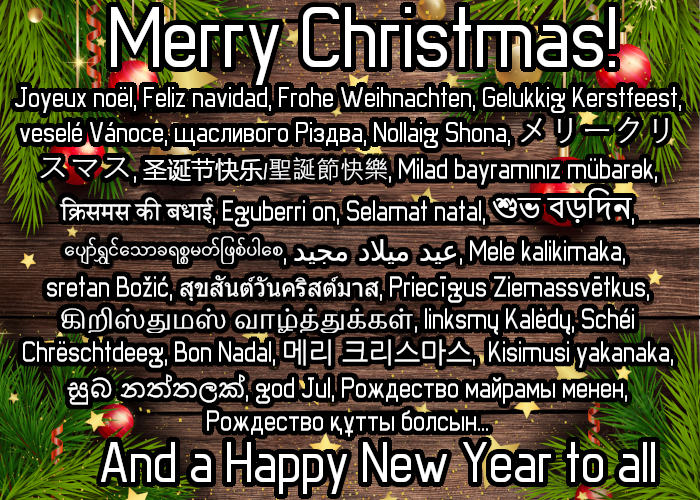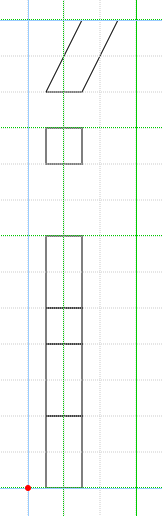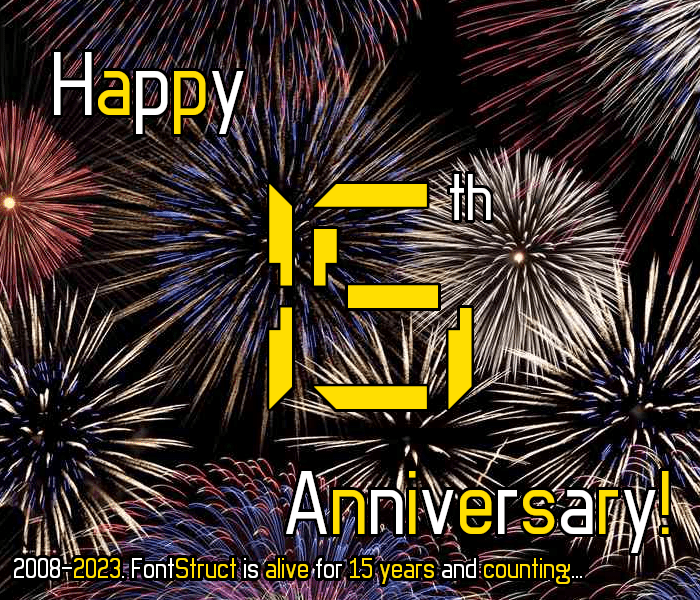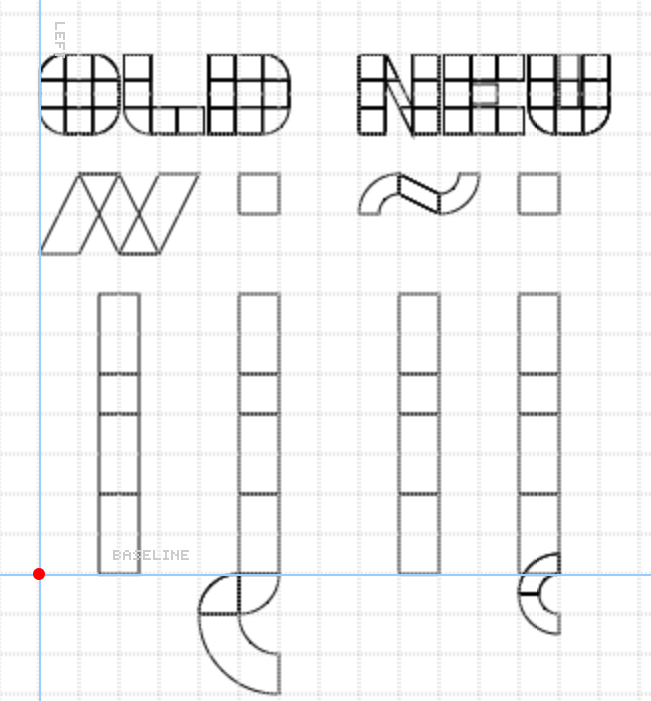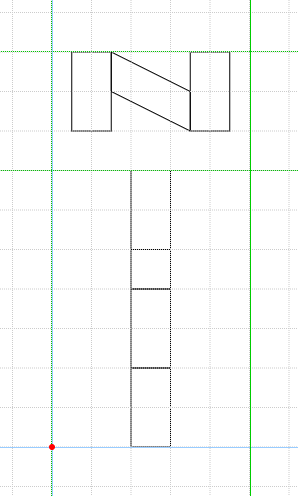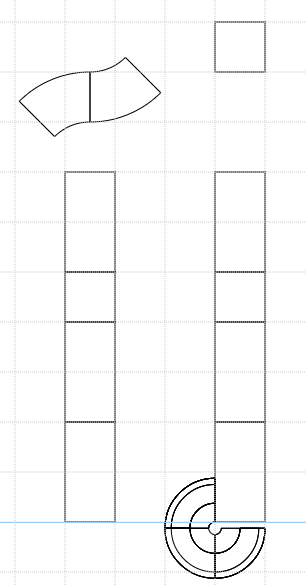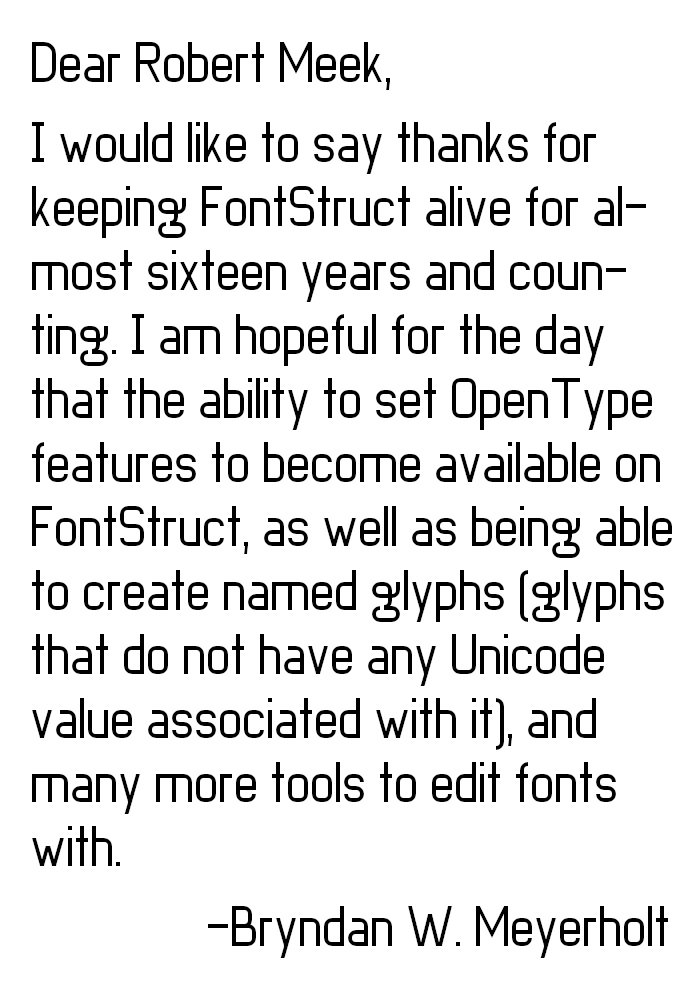
Clear and neat font!
Nice and extensive "macaroni" typeface!
The classic, but timeless, BWM look. Sweet.
A clean and very well put together sans serif and so many characters!
why is your g in almost every font weird?
@lucapri: It's his signature 'g'. He even writes it like that
Simple but elegant without seeming too formal. Plus I appreciate the variety of glyphs to choose from
I think figuring out the slopes of the legacy mosaic symbols was more difficult…
Also, the Mayan numerals were really easy to do as it has three distinct parts to it, the shell (0), the dot (1), and the line (5).
Now if only I could add named glyphs (like the .notdef) without needing FontForge, then I might make i-acute look like this for Lithuanian without the need for the Private Use Area to hold said glyphs (I use the Private Use Area for the 7-segment display and arbitrary fractions).
The Vietnamese glyphs in this font is absolutely PERFECT!!!!
@"Kiên Trung" Thanks. I had to squash down the base letters so the diacritics can fit within the vertical spacing without clipping being an issue (It occurs a lot with Windows, since many programs still use WinAscent and WinDescent (unless the flag to use Typo metrics is enabled)), especially on letters that have two marks above a letter. And of course, Ỳ is also a part of Welsh as well.
Fun fact: For some Vietnamese letter such as Ấ, Ầ, Ẩ (circumflex with grave/acute/hook above), you can put the grave/acute/hook above to the right side of the circumflex (for the grave, you can put it on both side of the circumflex)
One more thing I forgot: I'm in love with your signature "g", maybe I should have my own signature letter too.
so basically the tlide and ogonek needs more improving, so i will fix this
so here, [suggestion]
(the improved tlide and ogonek design that i made)
@SUMMER701 I looked at your suggestion, but sadly, it would make both marks too thin or too small for my liking, but thanks anyways…
But I did create this shape for the tilde, and I think that this one looks better than the old tilde…
so i fixed the tlide and the ogonek so it doesn't look much thin
and also meet the arabic idrinomis